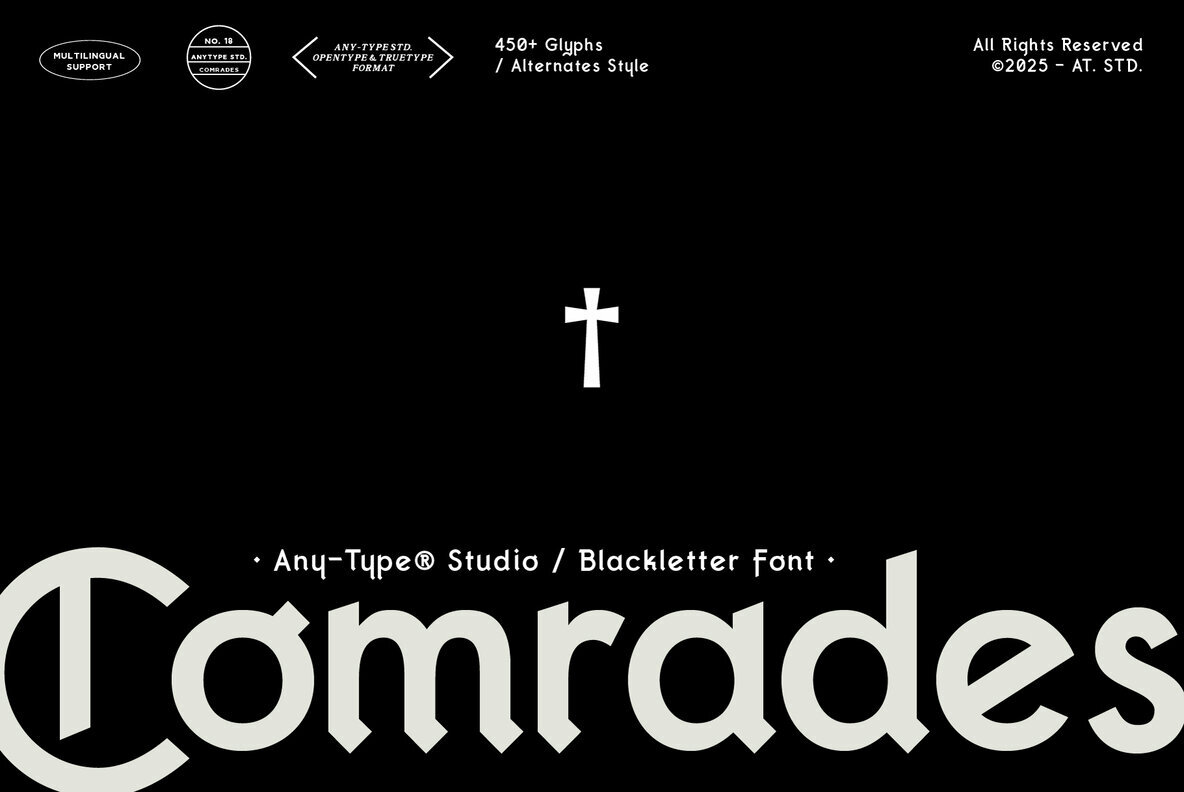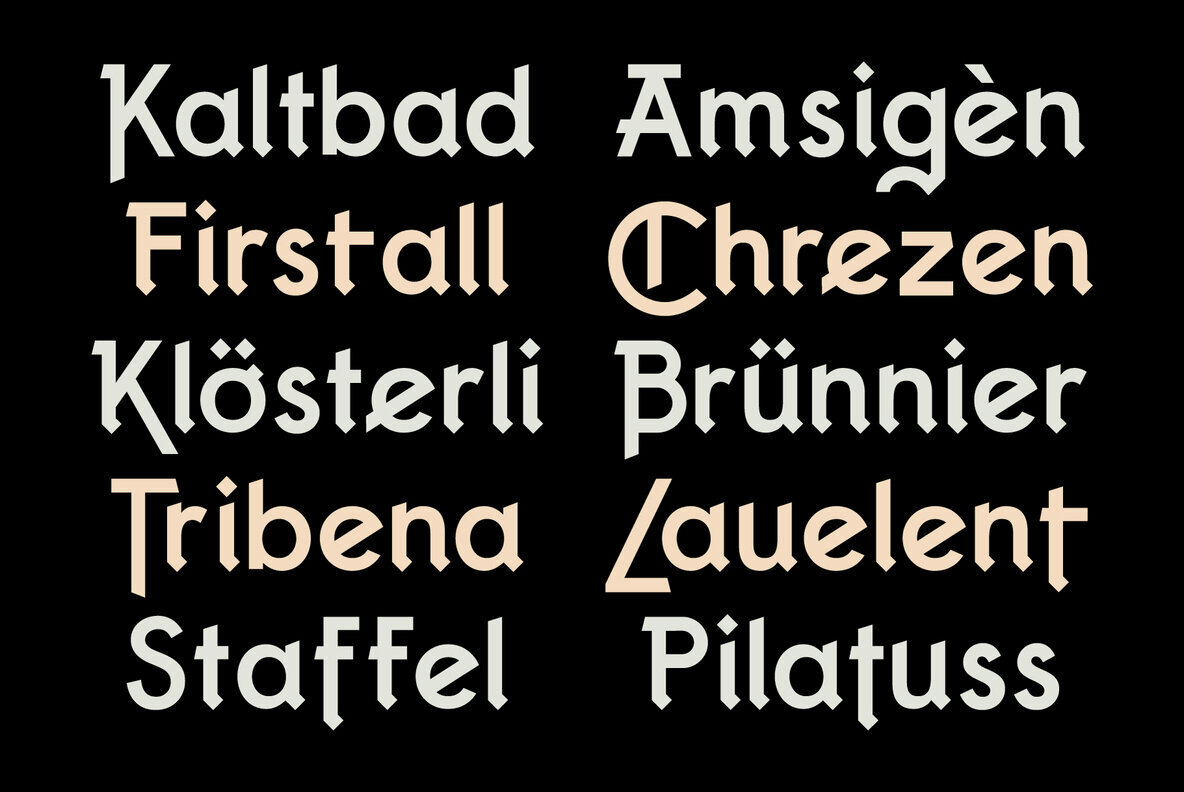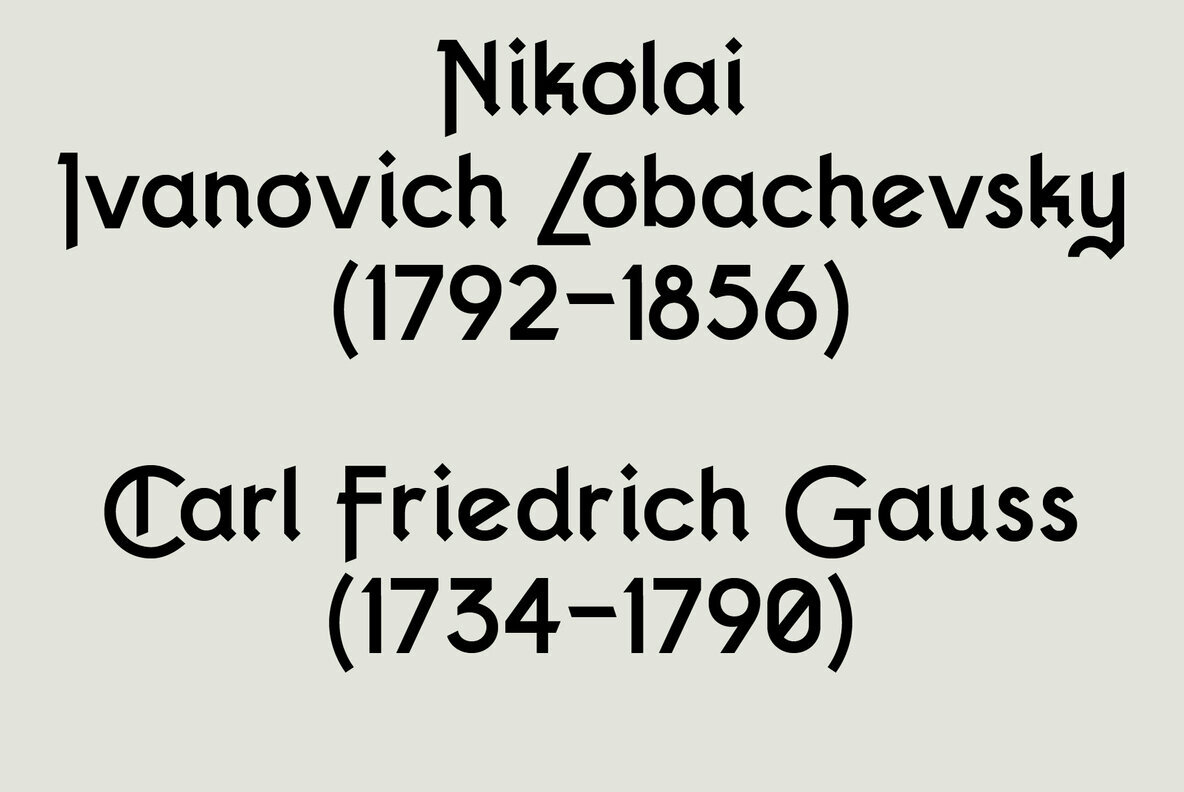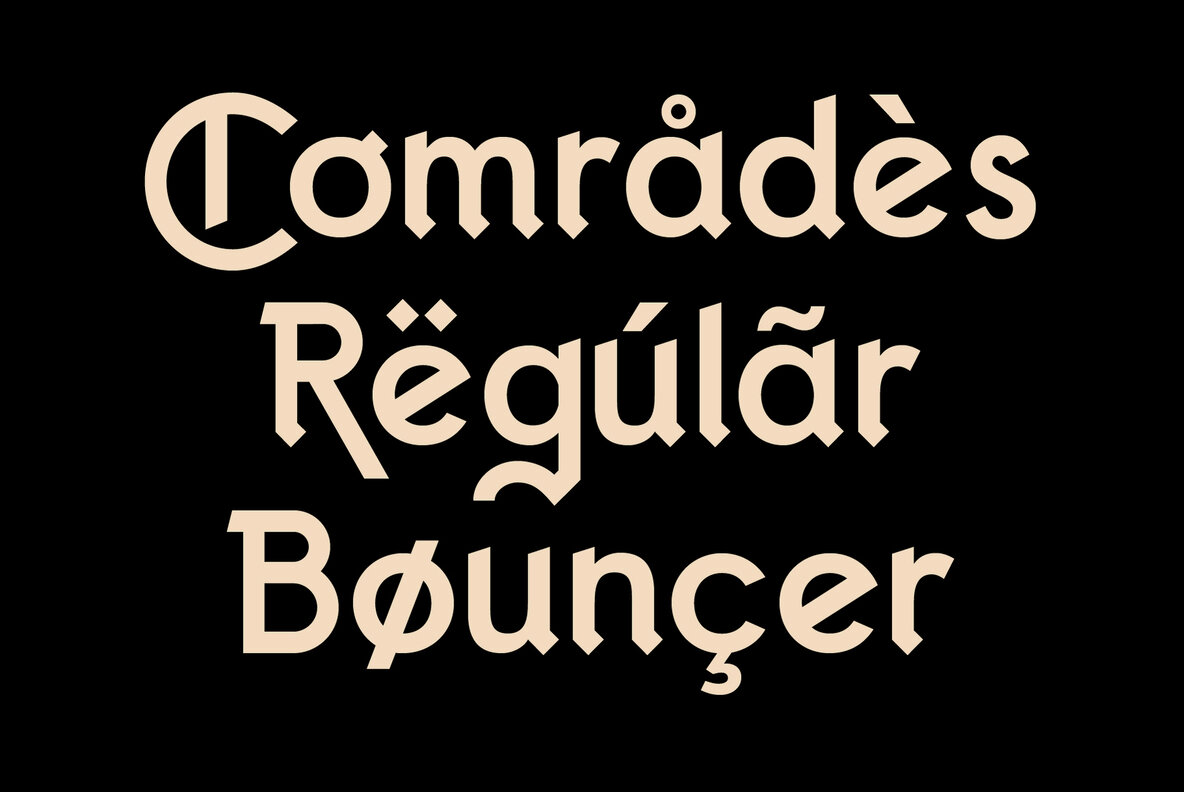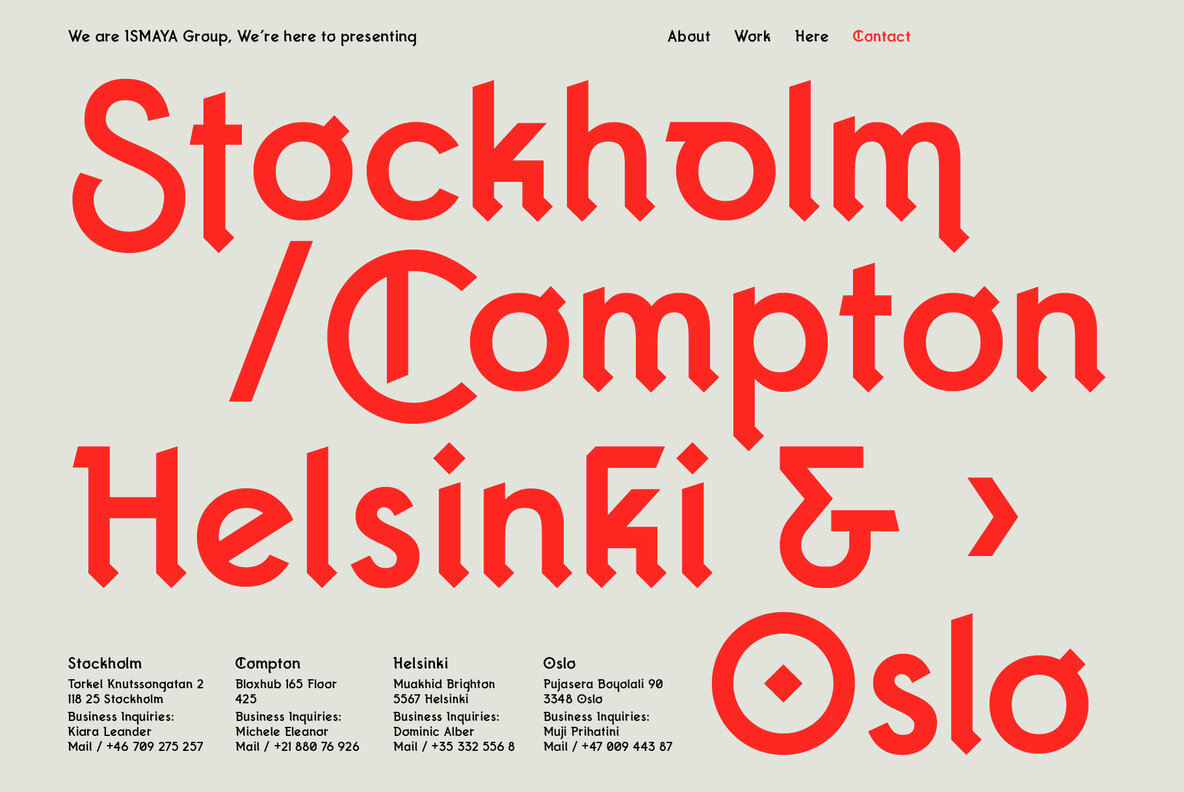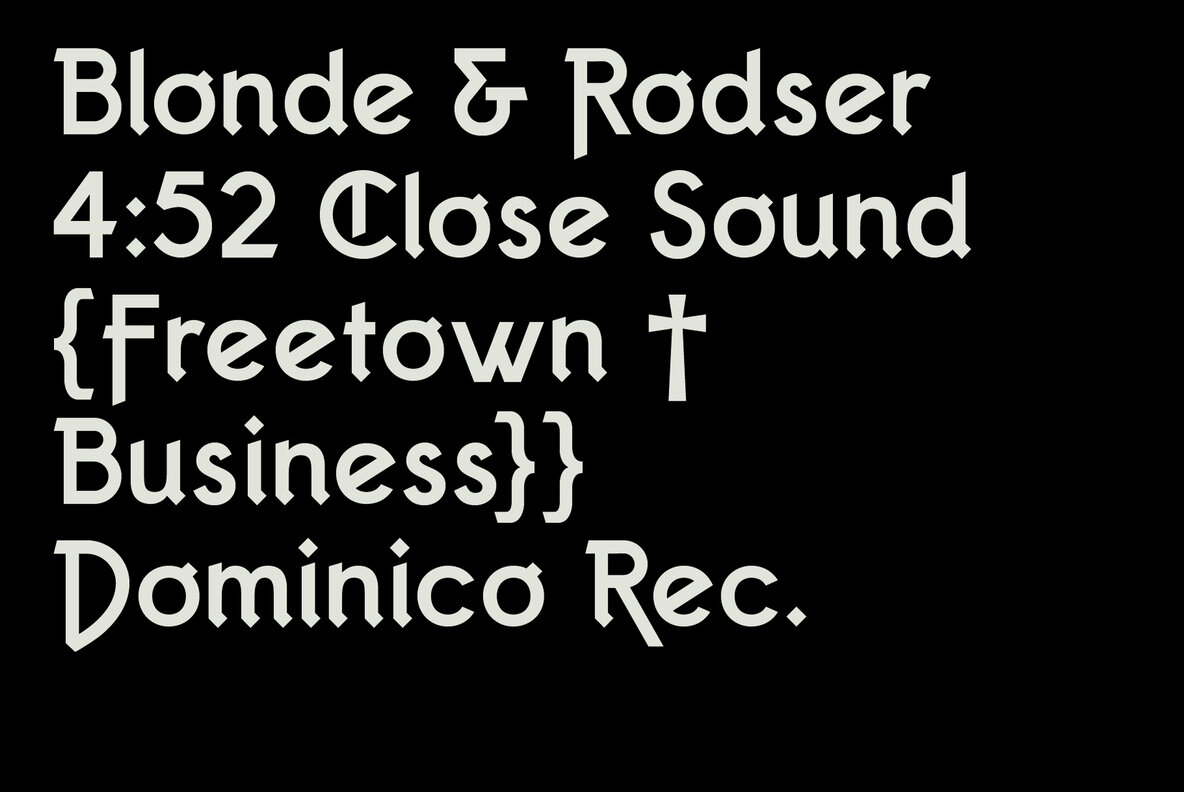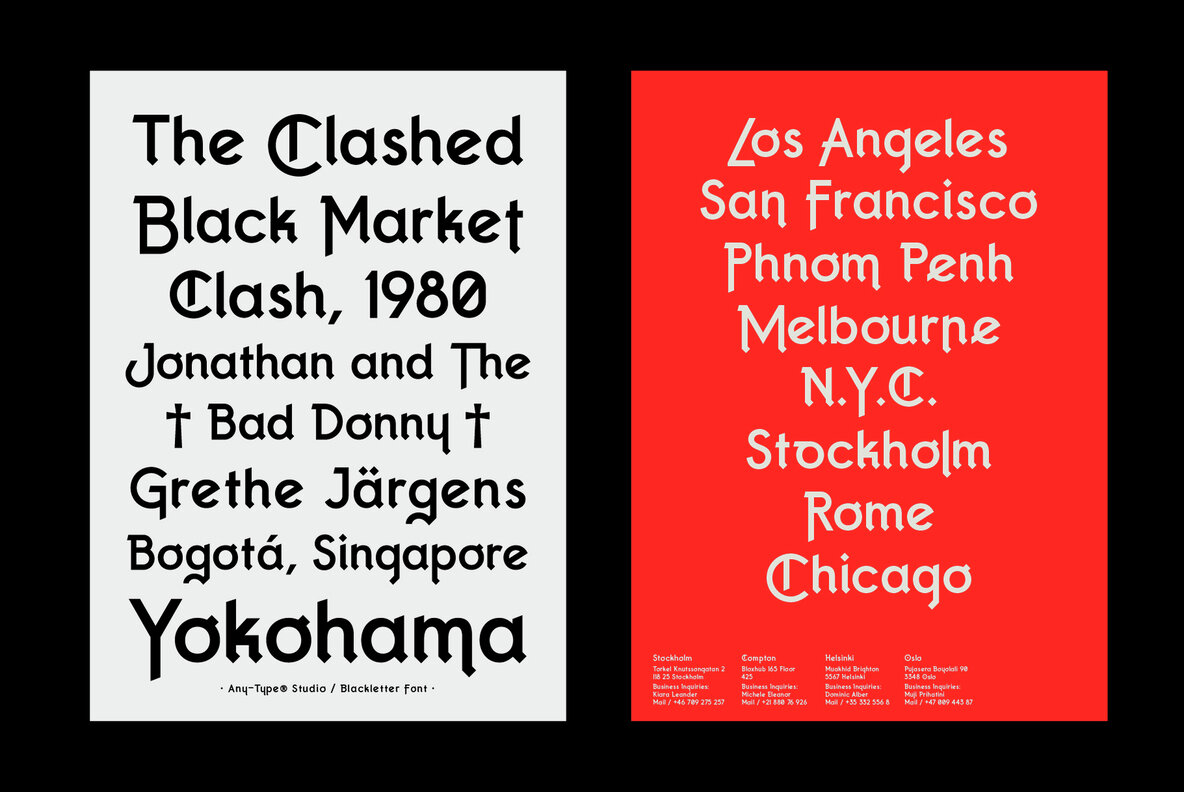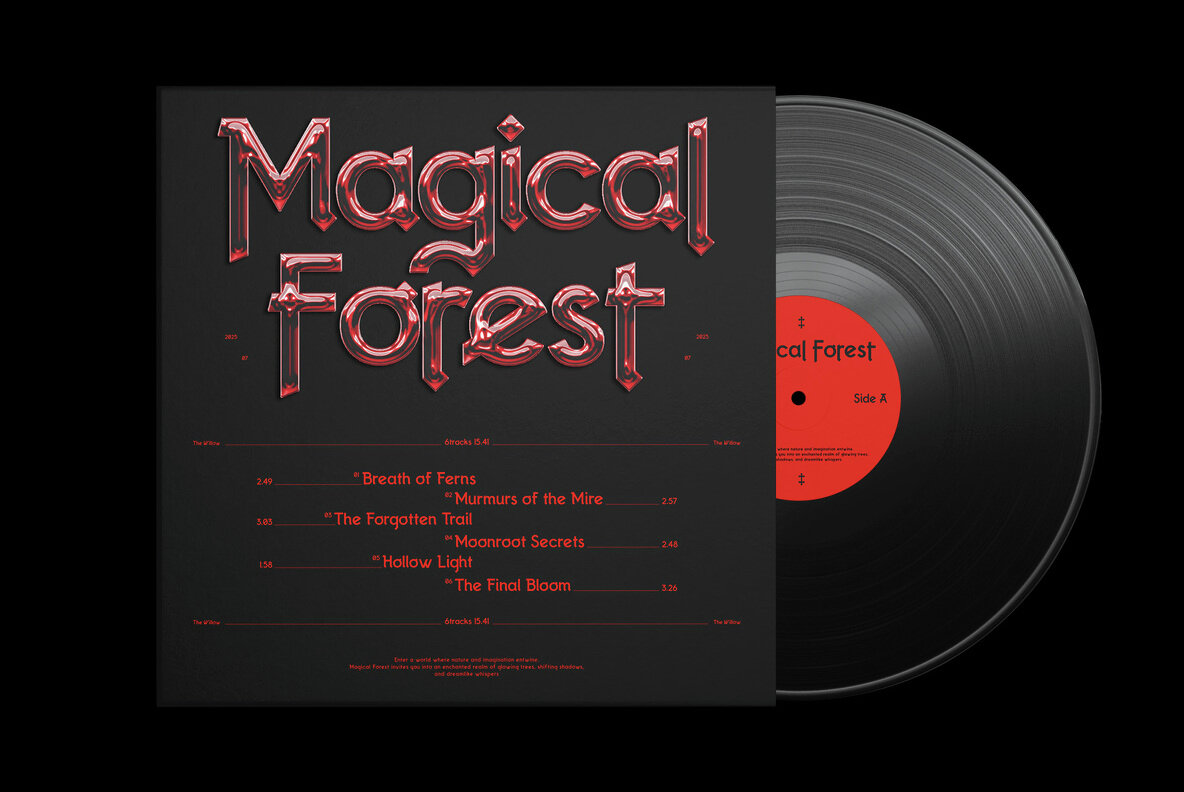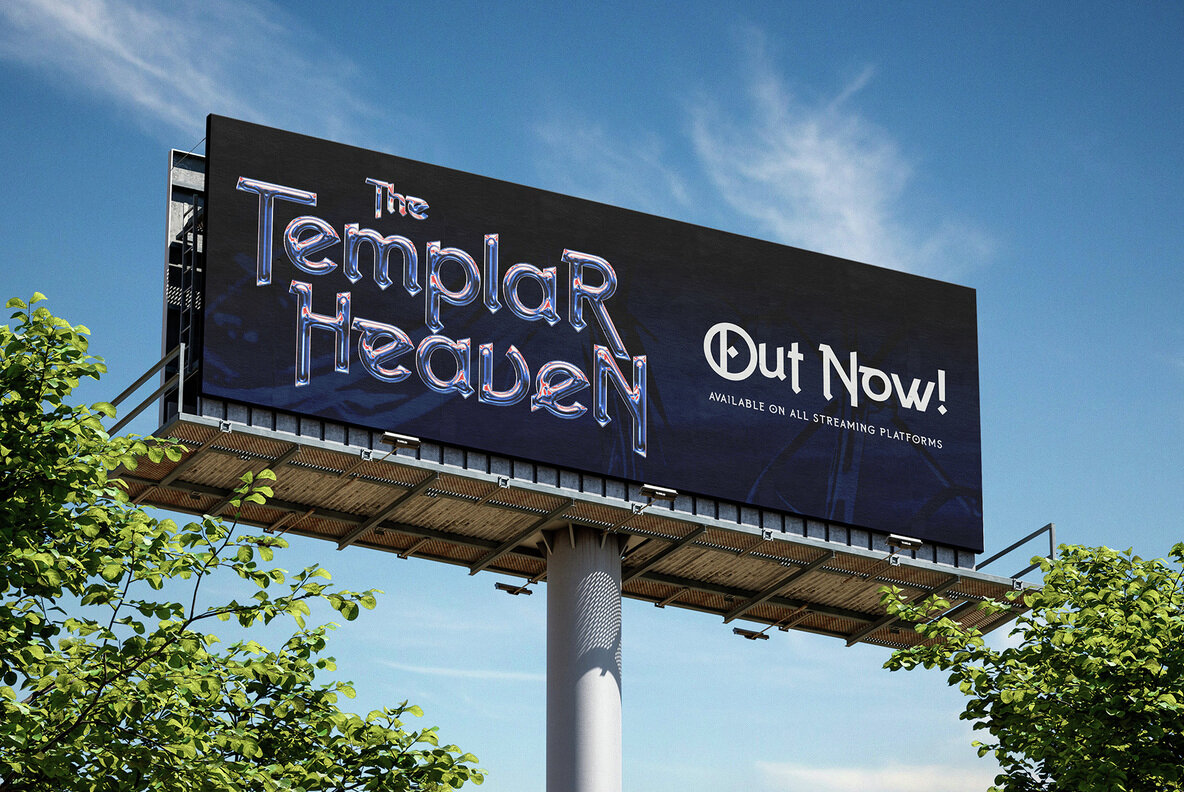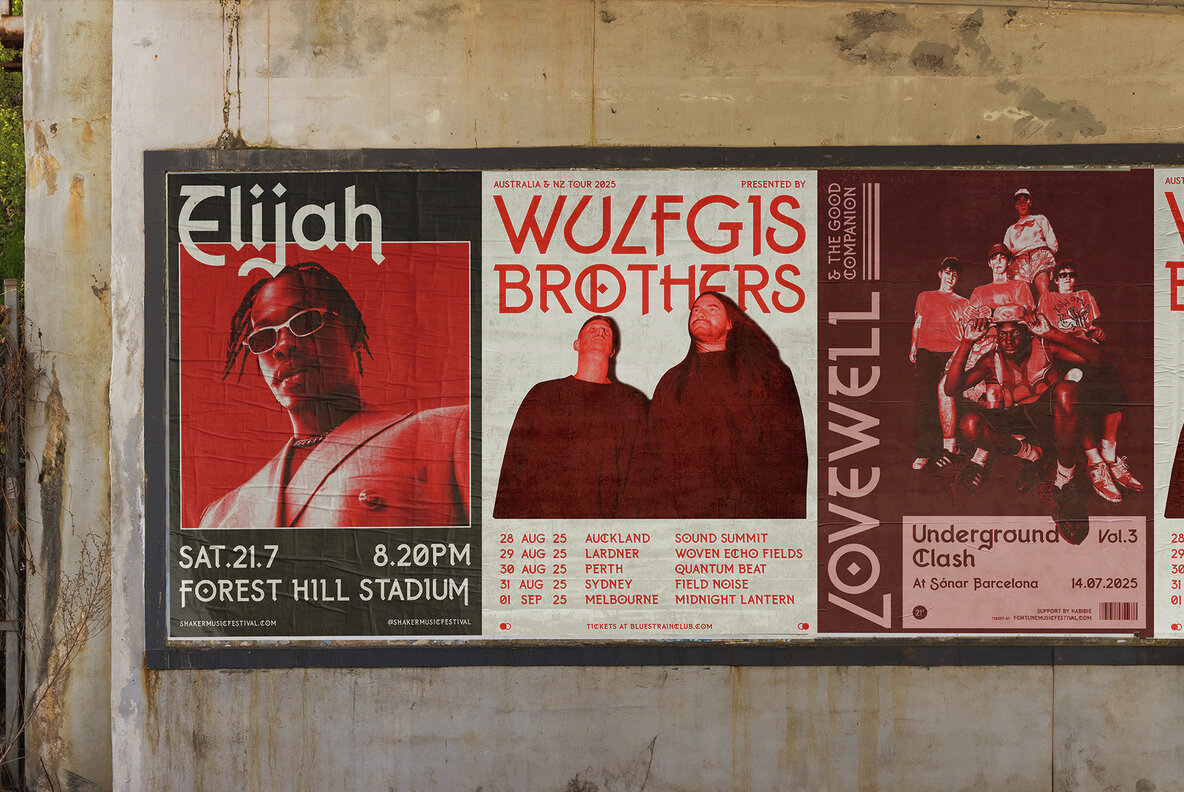
Comrades Font
AT Comrades Regular
Embrace the striking aesthetics of Comrades, a distinguished display font that seamlessly merges the old-world charm of blackletter with contemporary flair. Crafted by Any-Type Studio, this typeface is characterized by its geometric precision and sharp edges, which communicate strength and unity. Meanwhile, the integrated smooth, rounded elements ensure legibility and adaptability across a breadth of design applications. From branding and posters to editorial layouts, album art, and apparel, Comrades is tailored for projects that explore themes of solidarity, activism, or the juxtaposition of historical and modern styles. Features:Comrades: A Bold Blackletter-Inspired Display Font